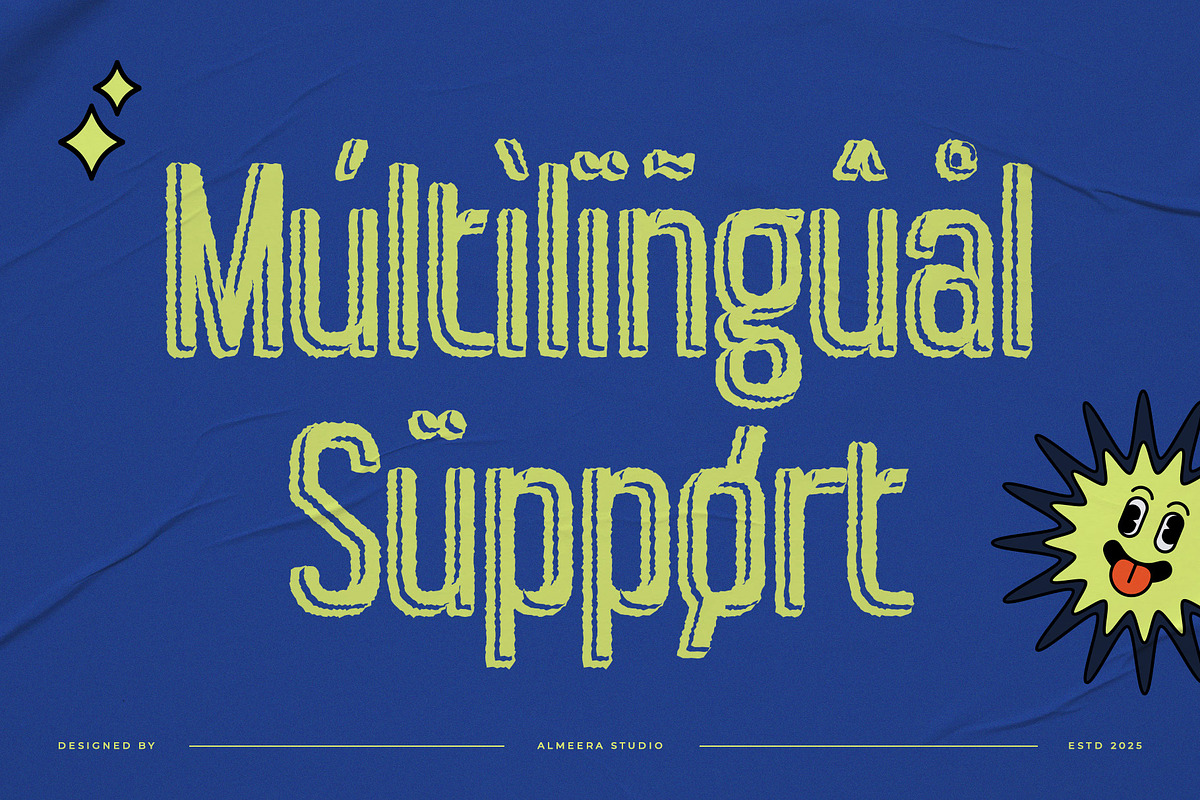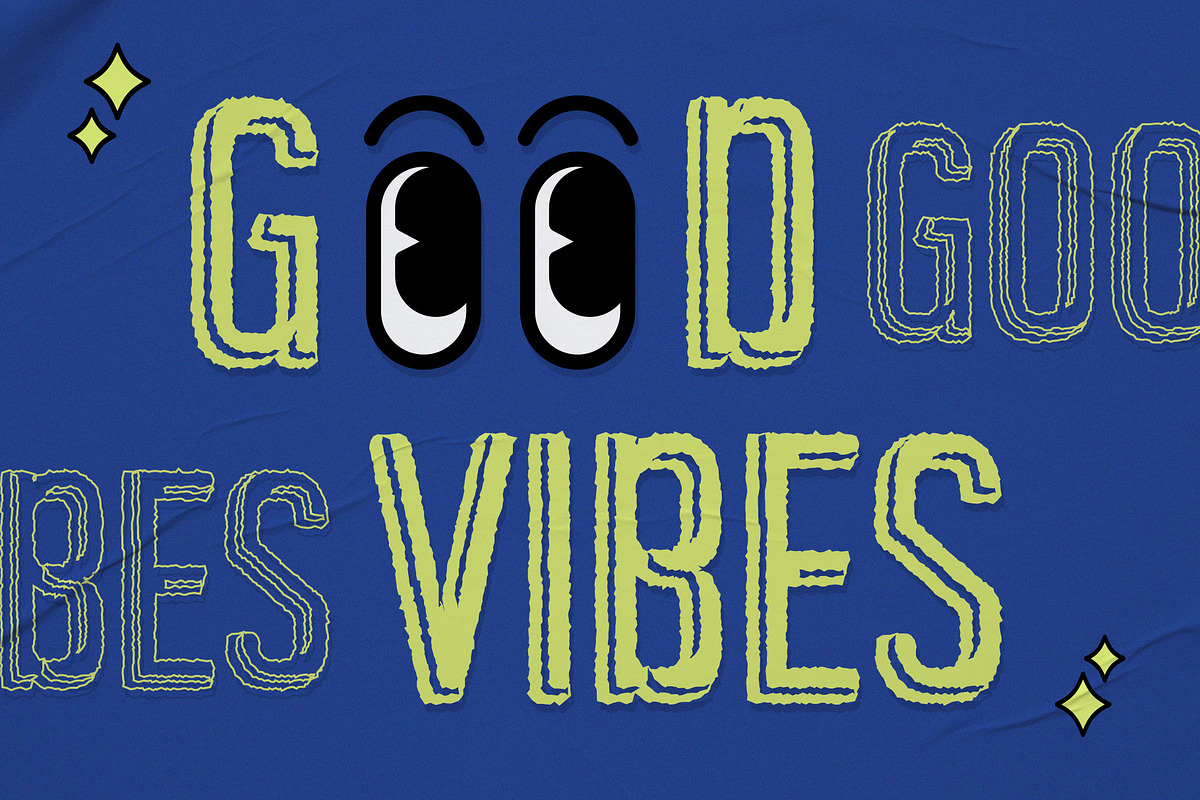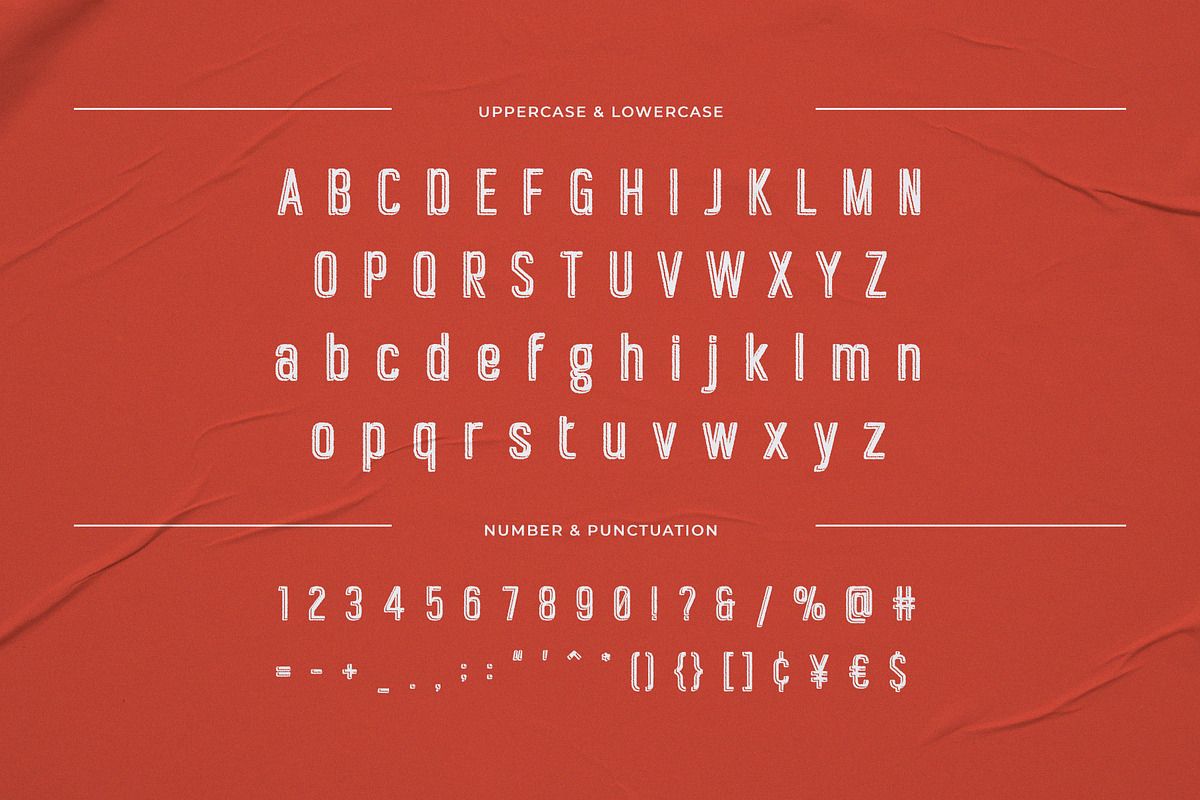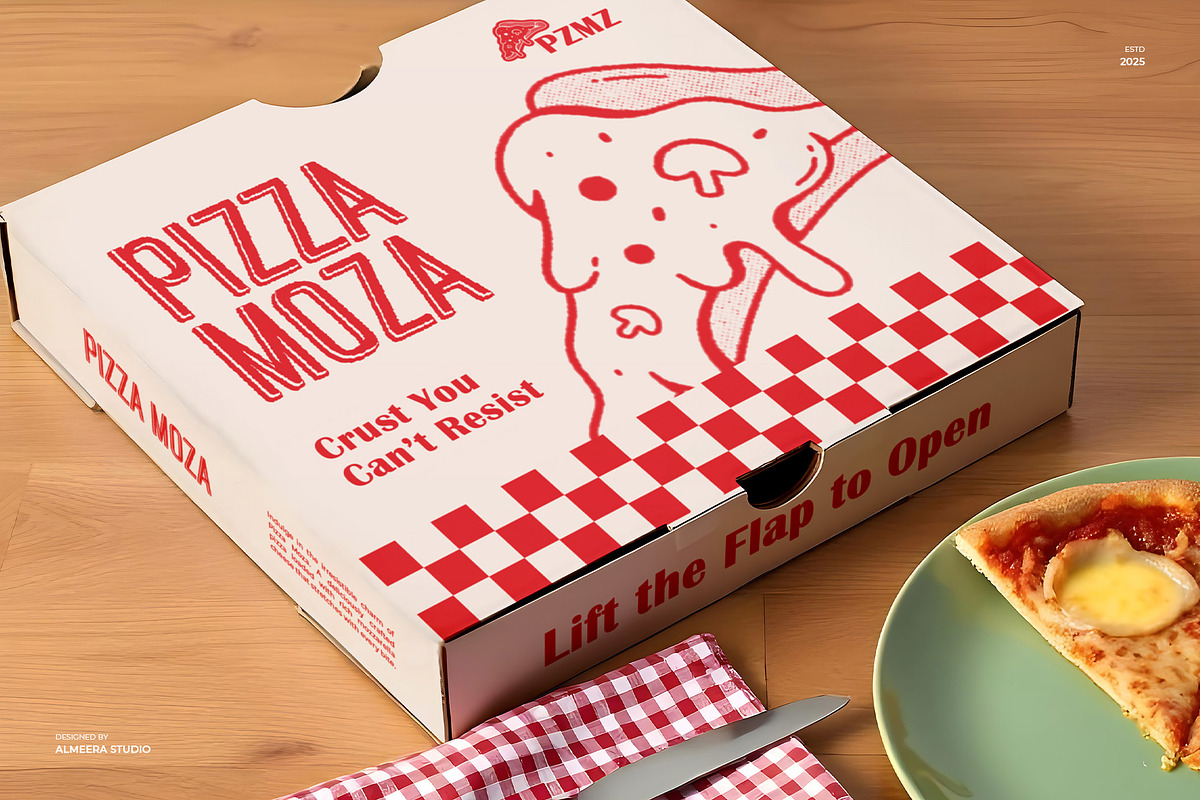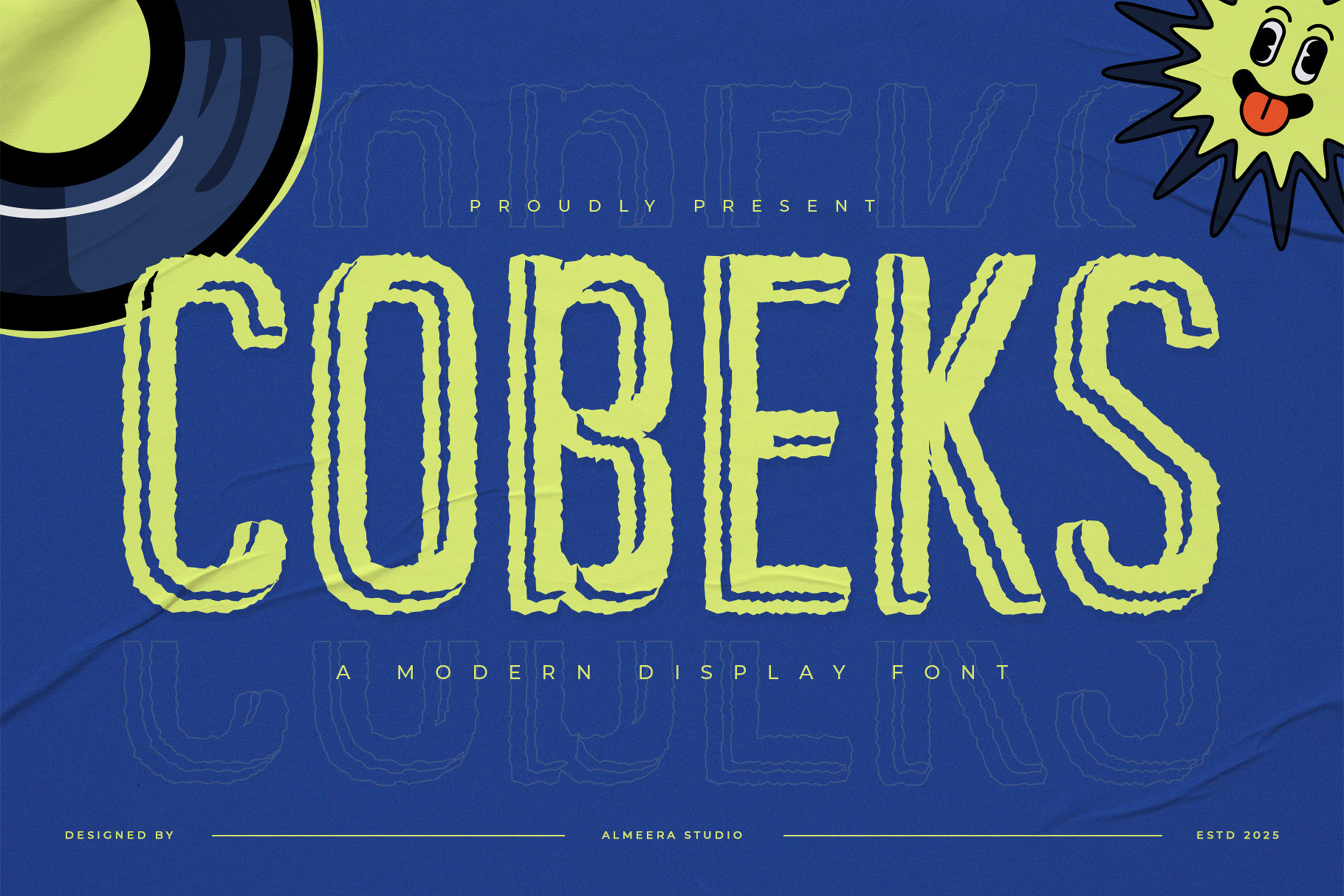
Cobeks – Modern Display Font
Cobeks is a quirky and experimental modern display font with a unique ripple-like texture. Designed for creatives looking to break the mold, Cobeks delivers an electric and rebellious feel. Perfect for poster designs, youth-oriented branding, music covers, and merch that stands out with a punch of personality.
- Numerial